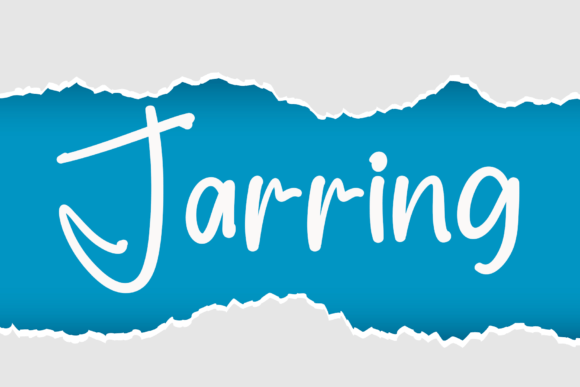
Introducing Jarring Font, the ultimate choice for video game enthusiasts and creative minds alike! Crafted by the talented team at Black line, this script font is here to elevate your designs to new heights. With its impeccable form and contemporary atmosphere, Jarring is the perfect blend of elegance and modernity.
Imagine the power of a timeless classic calligraphy transformed into a stylish handwritten font. Jarring exudes a sense of sophistication that will captivate your audience from the very first glance. Its balanced and varied design ensures that each letter is a work of art, enhancing the beauty of your projects effortlessly.
Why settle for ordinary when you can have extraordinary? Unlock the potential of your designs with Jarring Font's versatility and unrivaled style. Whether you're creating a logo, designing a website, or crafting promotional materials, this font will add a touch of magic, making your content truly unforgettable.
But Jarring Font isn't just about aesthetics - it's about evoking emotions and creating connections. Picture the excitement and thrill that video games bring, and let this font transport your audience into a world of adventure. Its dynamic nature and expressive strokes will breathe life into your text, making it jump off the screen and leave a lasting impact.